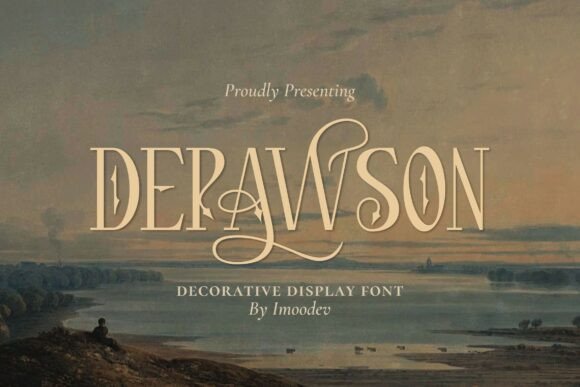
Introducing Depawson Font: The Epitome of Vintage Luxury
In the realm of typography, few fonts evoke the essence of vintage luxury as effortlessly as Depawson. This decorative Roman-style display typeface is a masterful blend of classical proportions and Art Nouveau flourishes, exuding an air of sophistication and elegance. Depawson’s unique charm lies in its ability to convey a sense of aristocracy without appearing too stiff or formal, making it an ideal choice for designers and crafters seeking to add a touch of luxury to their projects.
A Study in Elegance and Sophistication
Depawson’s design is characterized by sharp serifs and vertical elegance, which combine to create a sense of refinement and poise. The font’s classical Roman proportions provide a solid foundation, while the lush Art Nouveau flourishes add a touch of whimsy and drama. The result is a typeface that is both eye-catching and sophisticated, perfect for use in a variety of applications where luxury and elegance are paramount.
The Personality of Depawson: Ornate Swashes and Ligatures
What sets Depawson apart from other fonts is its ornate swashes, ligatures, and alternates. These swooping lines and dramatic extensions transform ordinary characters into something truly special, evoking the grandeur of antique leather goods signs and 19th-century playbills. The font’s ornamental features demand attention and respect, adding a level of personality and flair to any project. Whether used in packaging, editorial headlines, or invitations, Depawson’s unique character is sure to leave a lasting impression.
Depawson’s versatility is one of its greatest strengths, making it suitable for a wide range of applications. Some of the most popular uses for this font include:
- Packaging: Add a touch of luxury to your product packaging with Depawson’s elegant and sophisticated design.
- Editorial Headlines: Make your headlines stand out with Depawson’s bold and attention-grabbing style.
- Invitations: Create bespoke invitations that exude elegance and sophistication with Depawson’s ornate swashes and ligatures.
- Vintage Logos: Give your brand a touch of nostalgia and luxury with Depawson’s classic design.
- Boutique Brands: Perfect for high-end boutiques, Depawson’s font is sure to convey a sense of exclusivity and refinement.
- Classy Cafés: Add a touch of sophistication to your café’s branding with Depawson’s elegant design.
- Artisanal Goods: Showcase your artisanal products in style with Depawson’s unique and eye-catching font.
- Ornate Signage: Create stunning signage that demands attention with Depawson’s dramatic flourishes and swashes.
In conclusion, Depawson font is a true gem in the world of typography. Its unique blend of classical proportions and Art Nouveau flourishes makes it the perfect choice for designers and crafters seeking to add a touch of vintage luxury to their projects. With its ornate swashes, ligatures, and alternates, Depawson is sure to bring a level of sophistication and elegance to any application. Whether you’re working on packaging, editorial headlines, invitations, or vintage logos, Depawson font is the perfect choice for those who demand the best.